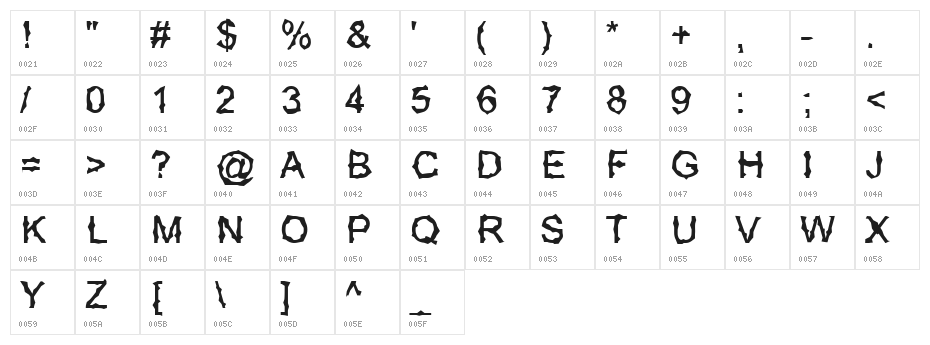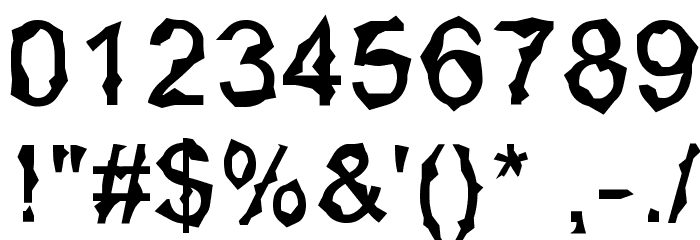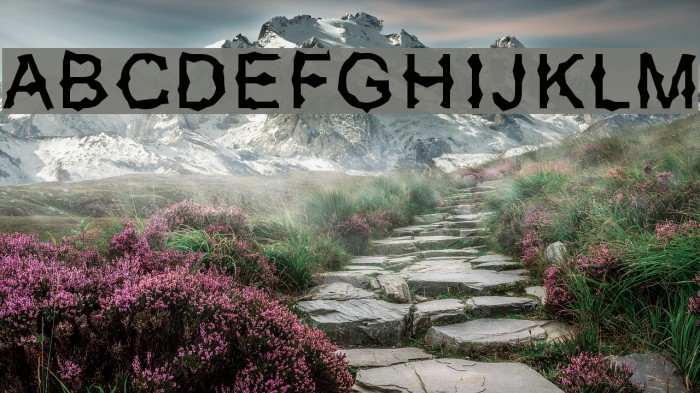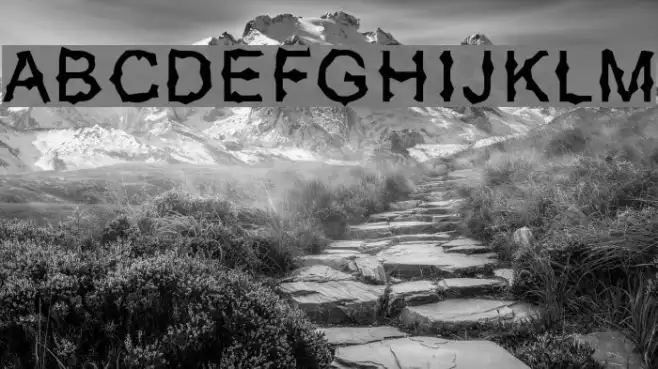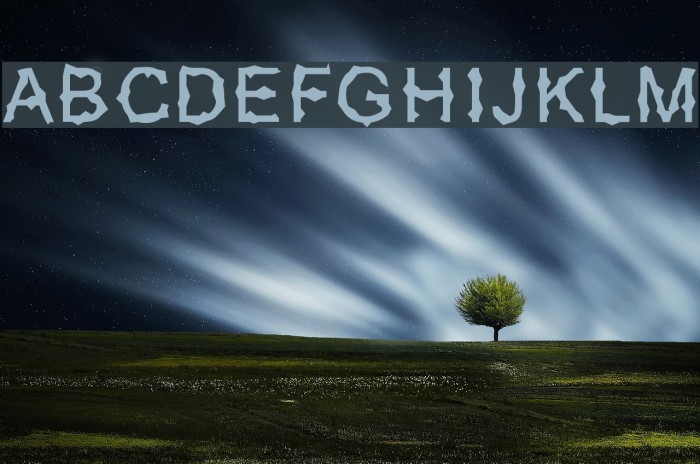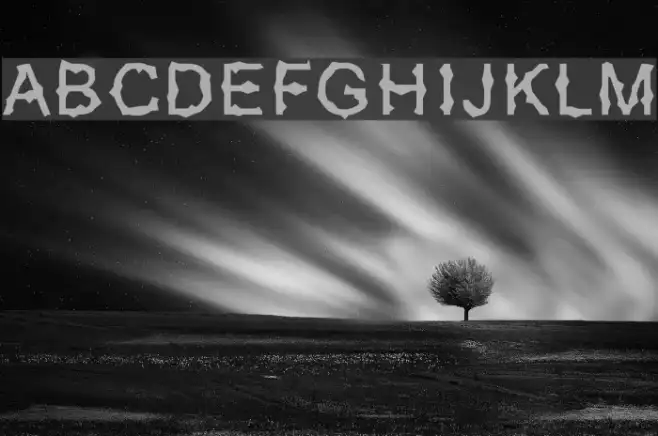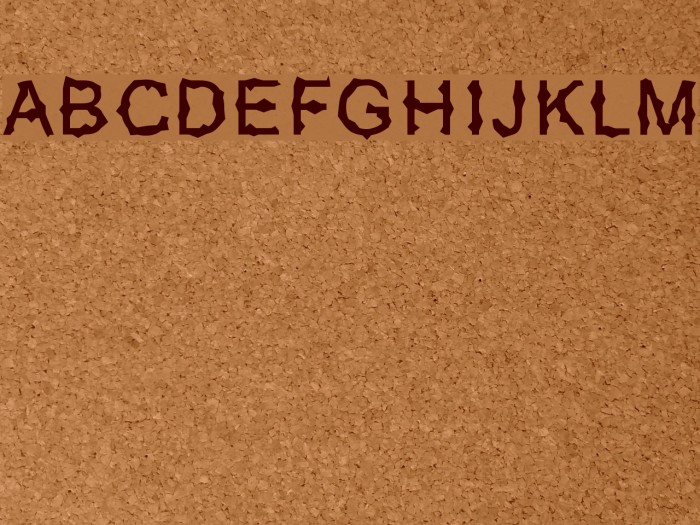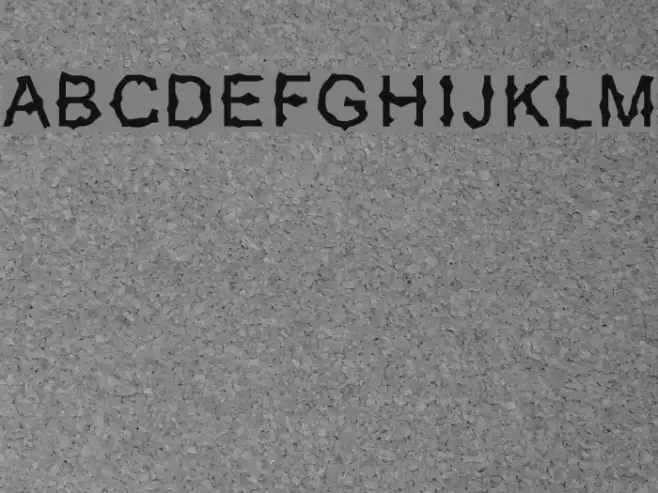
Mermaid Shards Font
Mermaid Shards Description
This font features a unique, jagged design that gives it a rugged and edgy appearance. The characters are irregularly shaped, resembling shards or fragments, which adds a dynamic and energetic feel. The uppercase and lowercase letters maintain a consistent style, with sharp angles and uneven edges that create a sense of movement. Numbers and special characters follow the same design principles, ensuring a cohesive look across all glyphs. This font is particularly eye-catching and can be used to make a bold statement in any design project.
| Proposed Projects | Ideal for projects that require a bold and unconventional look, such as posters, album covers, or branding for edgy products. |